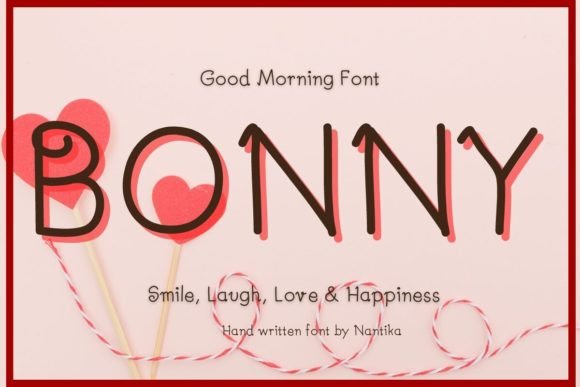
Meet Bonny Font: The Delightful Typeface that Captures the Joy of Childhood
In the world of typography, fonts are often designed to evoke a specific mood or atmosphere. Some are sleek and modern, while others are classic and elegant. But what about fonts that capture the carefree spirit of childhood? Look no further than Bonny Font, a delightful and airy typeface that embodies the joy and enchantment of youth.
A Jovial Round Style that Sparks Smiles
Bonny Font is a jovial round typeface that immediately catches the eye with its playful and cheerful design. Inspired by the irrepressible joy and enchantment of childhood, this font is perfect for creating designs that require a touch of whimsy and innocent charm. The rounded edges and soft curves of Bonny Font give it a friendly and approachable feel, making it ideal for use in a variety of design projects, from children’s books and educational materials to branding and advertising.
One of the standout features of Bonny Font is its ability to evoke a sense of happiness and nostalgia. The font’s playful design is reminiscent of childhood memories, transporting you back to a time when life was simpler and less complicated. Whether you’re looking to create a design that appeals to children or one that simply captures the carefree spirit of youth, Bonny Font is an excellent choice.
Perfect for Designs that Require a Touch of Whimsy
Bonny Font is a versatile typeface that can be used in a wide range of design applications. Its playful and cheerful design makes it perfect for:
- Children’s books and educational materials: Bonny Font is an excellent choice for children’s books, activity sheets, and educational materials. Its playful design will capture the attention of young readers and make learning fun.
- Branding and advertising: Use Bonny Font to add a touch of whimsy and personality to your brand or advertising campaign. Its friendly and approachable feel makes it perfect for businesses that want to appeal to a younger audience.
- Party invitations and decorations: Create eye-catching party invitations and decorations with Bonny Font. Its playful design is sure to set the tone for a fun and festive celebration.
- Digital media: Bonny Font is also perfect for digital media, including social media graphics, blog posts, and website designs. Its cheerful design will add a touch of personality to your online presence.
Typography Features that Bring Bonny Font to Life
Bonny Font is more than just a playful typeface – it also features a range of typography features that bring it to life. Some of the key features include:
- Unique letterforms: Bonny Font features unique and playful letterforms that are designed to evoke a sense of childhood wonder.
- Rounded edges: The font’s rounded edges and soft curves give it a friendly and approachable feel.
- Open and airy design: Bonny Font has an open and airy design that makes it perfect for use in a variety of design applications.
- Multilingual support: Bonny Font supports multiple languages, making it a great choice for designers who work on international projects.
How Bonny Font Compares to Other Fonts
So, how does Bonny Font compare to other fonts on the market? Here are a few key differences:
- Playfulness: Bonny Font is much more playful than traditional serif or sans-serif fonts, making it perfect for designs that require a touch of whimsy.
- Legibility: Bonny Font is highly legible, even at small sizes, making it perfect for use in body text or captions.
- Uniqueness: Bonny Font has a unique and distinctive design that sets it apart from other fonts on the market.
Tips for Using Bonny Font in Your Designs
Here are a few tips for using Bonny Font in your designs:
- Use it sparingly: Bonny Font is a playful font, so use it sparingly to add a touch of whimsy to your design.
- Pair it with a neutral font: Pair Bonny Font with a neutral font, such as a sans-serif font, to create visual interest and contrast.
- Experiment with colors: Bonny Font looks great in a range of colors, so experiment with different hues and combinations to find the perfect look for your design.
In conclusion, Bonny Font is a delightful and airy typeface that captures the joy and enchantment of childhood. Its playful and cheerful design makes it perfect for creating designs that require a touch of whimsy and innocent charm. With its unique letterforms, rounded edges, and open and airy design, Bonny Font is sure to transport you back to those carefree, happy-go-lucky days. So why not give Bonny Font a try in your next design project and see the magic for yourself?